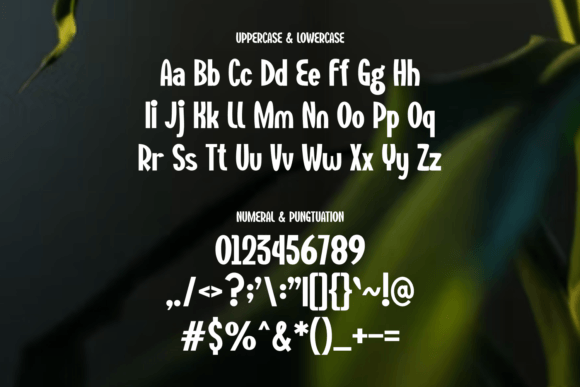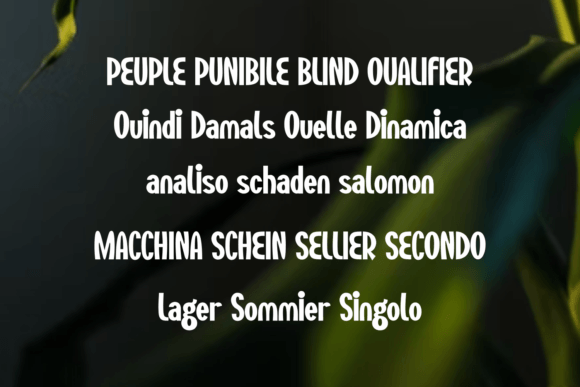
Introduction to Menosa Font
Have you ever stumbled upon a font that instantly sparks your creativity? For designers, this moment is like hitting the jackpot. It’s the moment when everything comes together, and your vision starts to take shape. That’s exactly what the Menosa Font does – it ignites the flame of inspiration, making it an invaluable asset for any creative project.
With its sleek and modern design, the Menosa Font is perfect for designers who crave high-quality typography that elevates their work to new heights. Whether you’re working on a personal project or a commercial design, this font is sure to be a game-changer. And the best part? You can get your hands on the Menosa Font for free, making it an incredible design resource that won’t break the bank.
Key Features of Menosa Font
- High-quality design for creative projects, including logos, graphics, and typography.
- Features a transparent background, allowing for easy layering and customization in design projects.
- Includes a range of font styles and weights, providing flexibility for designers to create unique and engaging visuals.
- Supports high-resolution displays, ensuring crisp and clear text rendering even at large sizes.
- Designed to be versatile and adaptable, making it suitable for a wide range of creative projects and applications.
Honest Review: Menosa Font
As a designer, I’m always on the lookout for high-quality fonts that can elevate my creative projects. Recently, I had the chance to try out the Menosa Font, and I must say, it’s been a game-changer.
What works well: ✨ The Menosa Font has a beautiful, modern design that’s perfect for anything from branding to digital products. The font is available for free download, making it a fantastic design resource for anyone looking to spice up their designs without breaking the bank. The transparent background is also a huge plus, allowing for seamless integration into any design project.
Some limitations: ⚠️ While the Menosa Font is a great addition to any designer’s toolkit, it’s not without its flaws. The font can be a bit tricky to use in certain situations, such as when trying to achieve precise spacing between letters. Additionally, the font’s versatility is limited to a specific style and aesthetic, which may not be suitable for every design project.
Overall, I’m really impressed with the Menosa Font. Its unique design and free availability make it a valuable resource for designers of all levels. While it may have some limitations, I think it’s a great choice for anyone looking to add some personality to their designs.
- Perfect for modern and creative projects
- Unique design with a modern aesthetic
Tips for Getting the Most Out of Menosa Font
To get the most out of Menosa Font, use it on designs with transparent backgrounds, and experiment with different font sizes and colors to achieve the desired look.
Menosa Font is commonly used for logo design, branding, and other creative projects where a high-quality, unique font is needed. Its transparent background makes it perfect for use on designs with intricate backgrounds or patterns.